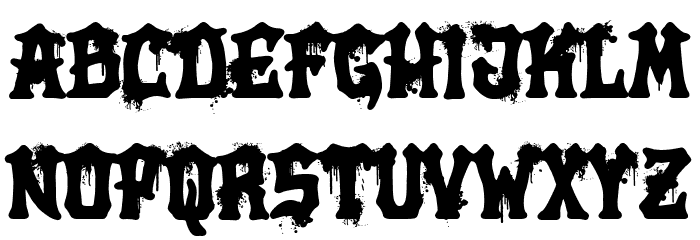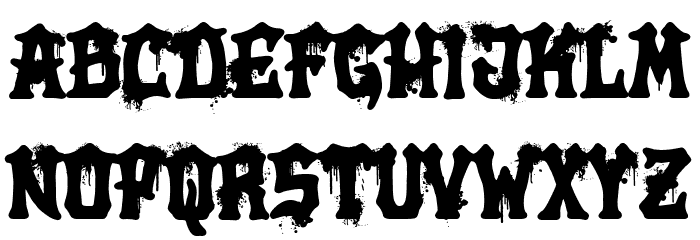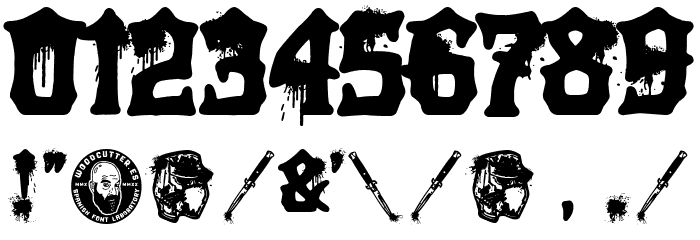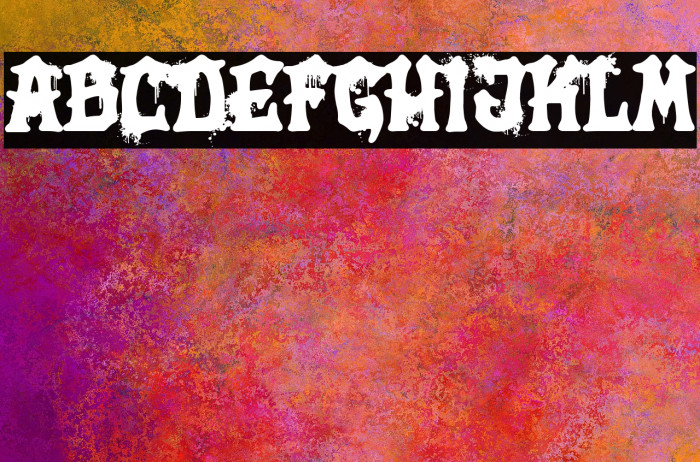
Arma Blanca BCN Font
This font exudes a gritty, urban aesthetic with its bold, distressed appearance. The characters are heavily stylized, featuring rough edges and splatter-like details that give it a rebellious, street-art vibe. The uppercase and lowercase letters maintain a consistent style, with exaggerated serifs and a blocky structure that commands attention. Numbers and special characters follow the same rugged design, making the font versatile for various creative applications. Its unique style is perfect for projects that require a bold statement, such as posters, album covers, or branding for edgy products.
A bold, distressed font with a gritty, urban style and splatter-like details.
- Font: Arma Blanca BCN
- Proposed Projects: Ideal for posters, album covers, streetwear branding, and edgy graphic designs.
- Overall Style: Urban, Gritty, Rebellious